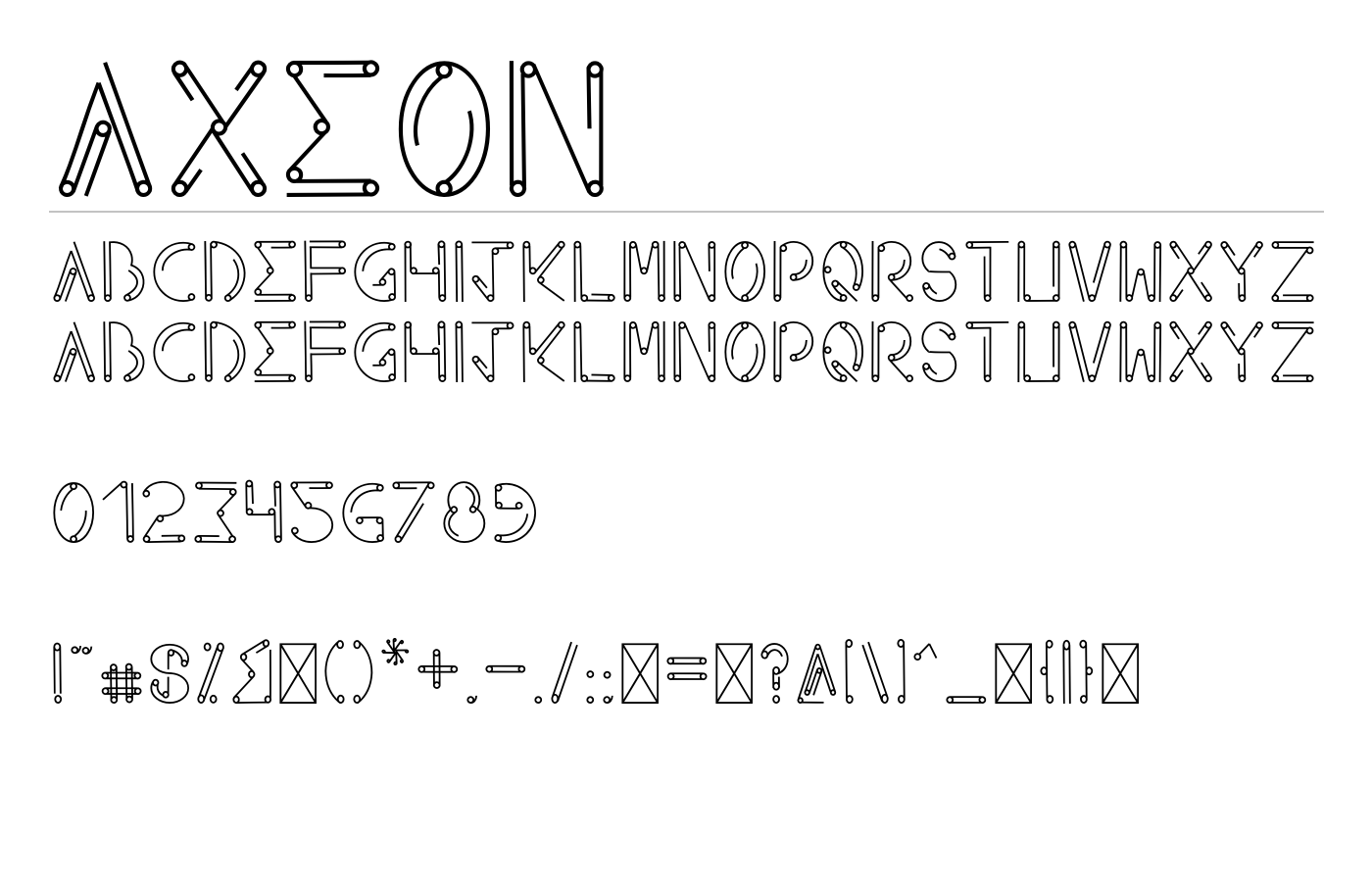
Axeon is a unique, futuristic sans serif font featuring thin, geometric lines connected by small circular nodes, giving it a technical and modern appearance. Its uppercase letterforms are airy and open, with consistent stroke weight and a slight decorative touch that suits tech, science, or digital branding. This font works best for logos, posters, and headlines where a clean, innovative, and eye-catching style is desired.
Axeon Font
About Axeon Font